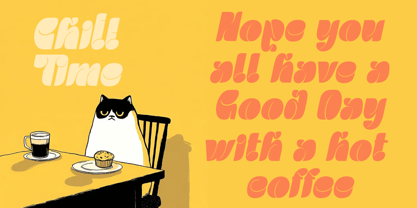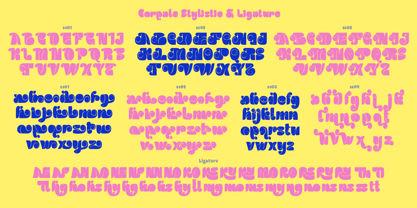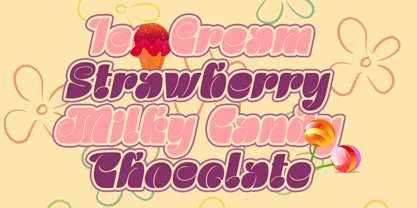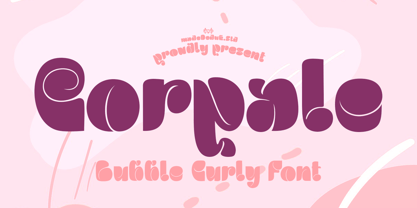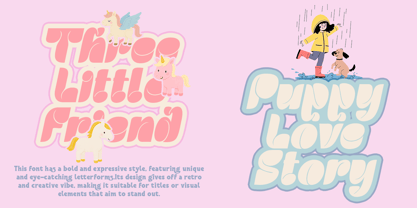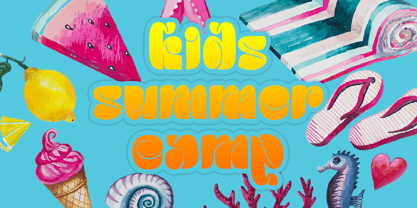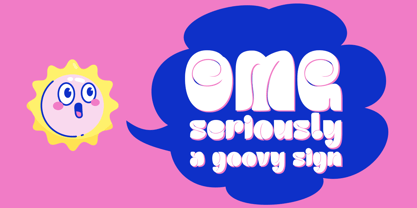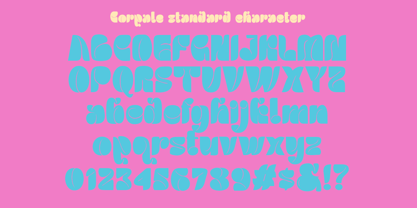
Corpale
by madeDeduk
The Corpale Font Family was designed by madededuk and published by madeDeduk. Corpale contains 1 styles. More about this family
Introducing the Corpale, the bubble curly font characterized by its bold and expressive style with unique, eye-catching letterforms. This design exudes a retro and creative vibe, making it ideal for titles or visual elements that need to capture attention. Perfect for a wide range of applications, including book titles, branding, product packaging, invitations, quotes, labels, posters, and logos, this font is a powerful choice for any creative endeavor.
Designers: madededuk
Foundry: madeDeduk